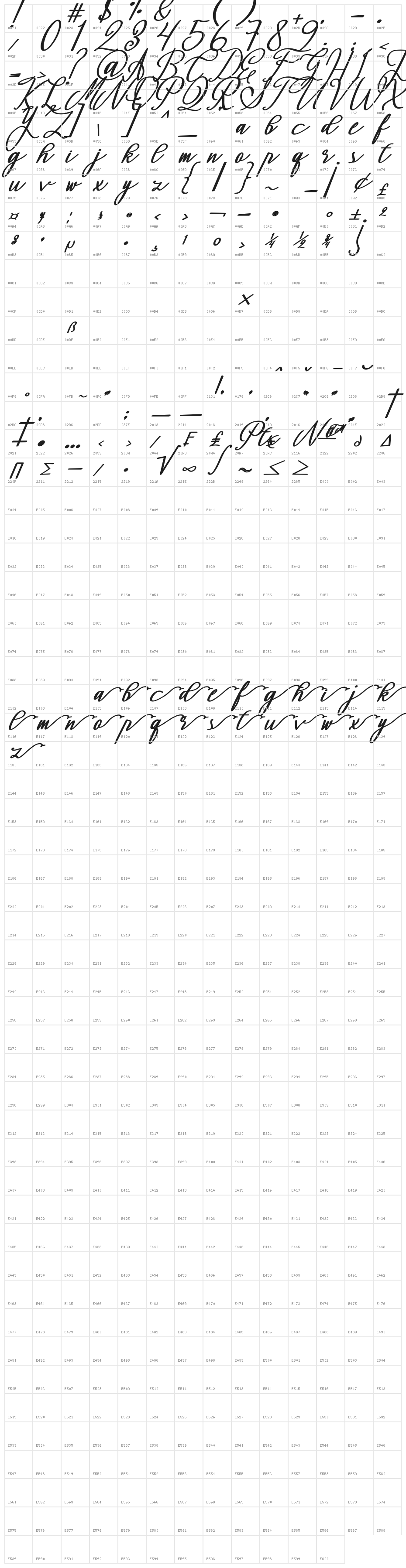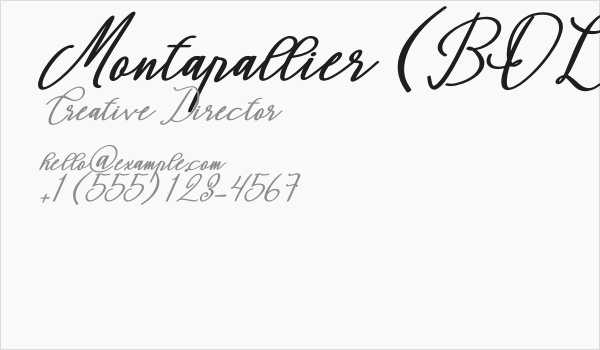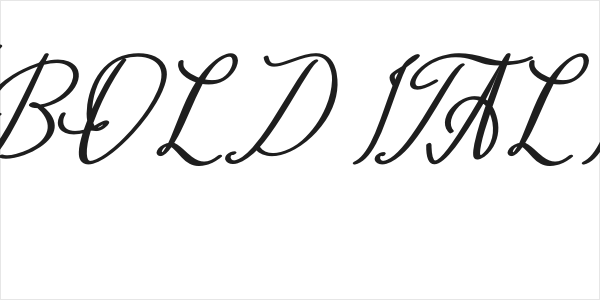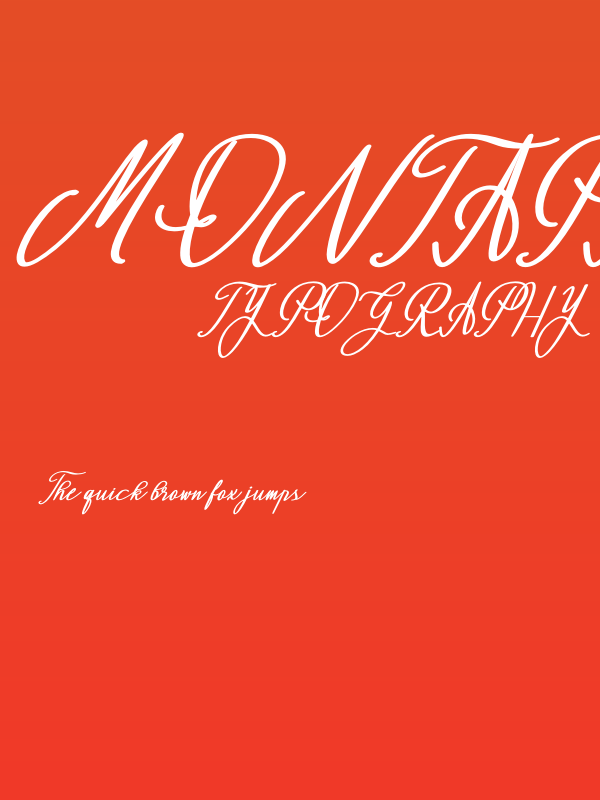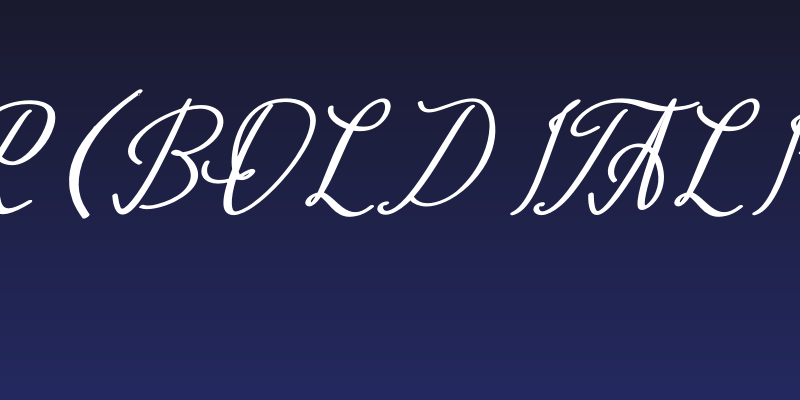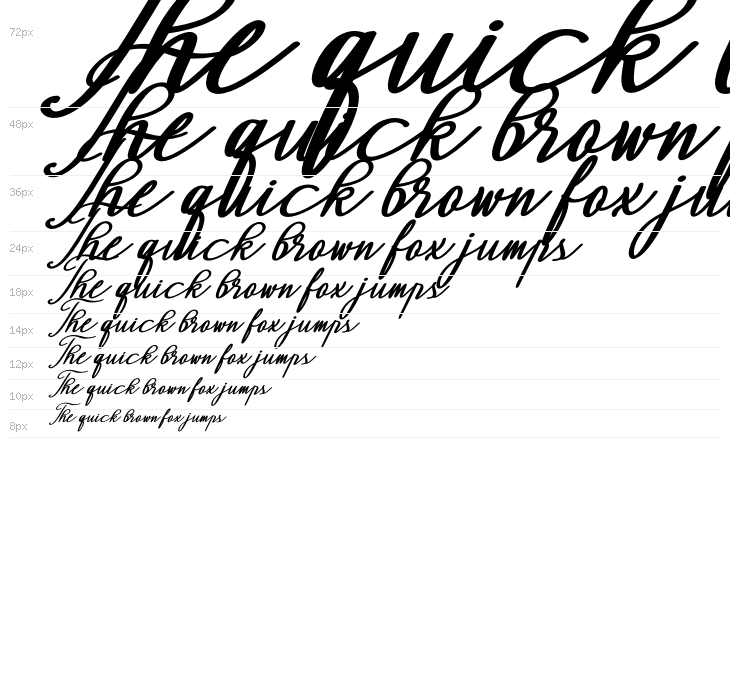
Montapallier (BOLD ITALIC) Bold Italic Font
Montapallier (BOLD ITALIC) Bold Italic Description
This font features a bold and italic script style, characterized by its flowing, cursive letters that convey elegance and sophistication. The uppercase letters are tall and slightly slanted, with decorative flourishes that add a touch of flair. The lowercase letters maintain a consistent slant, enhancing the script's fluidity and grace. Numbers and special characters are designed to match the overall aesthetic, ensuring a cohesive look. The bold weight of the font gives it a strong presence, making it suitable for impactful designs.
| Proposed Projects | Ideal for wedding invitations, elegant branding, greeting cards, and high-end product packaging. |